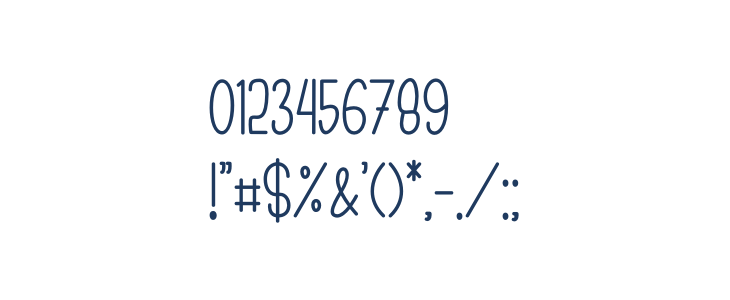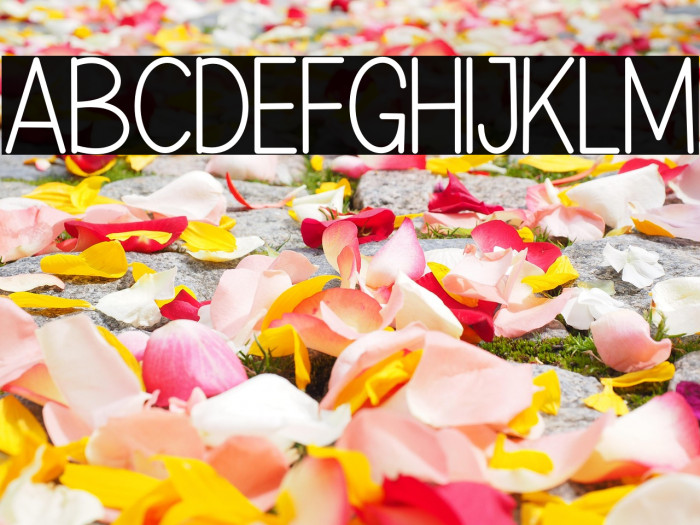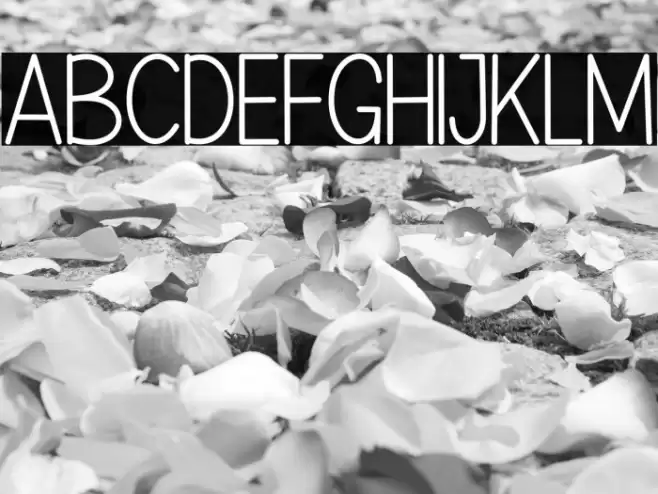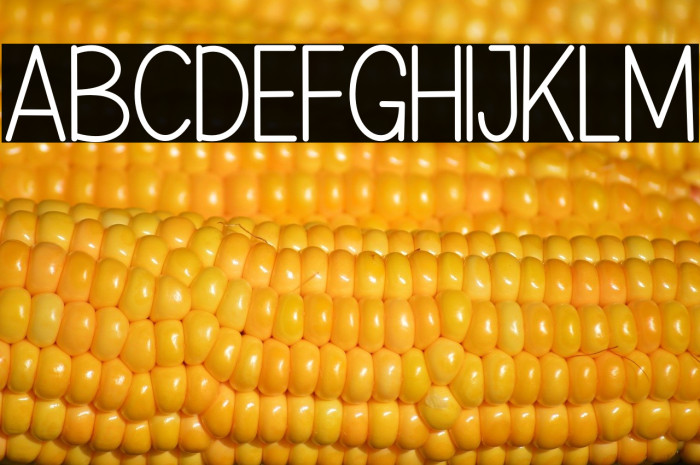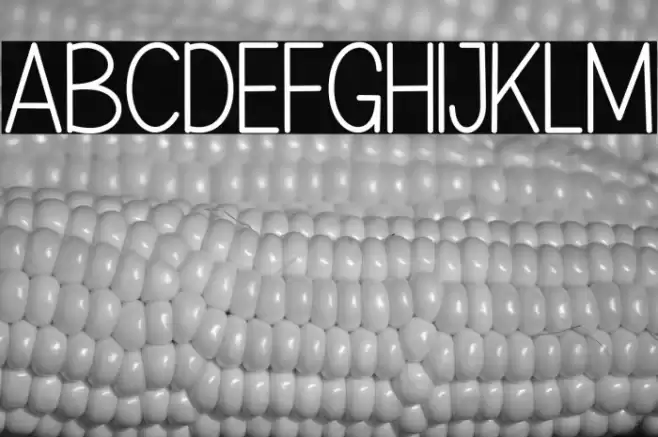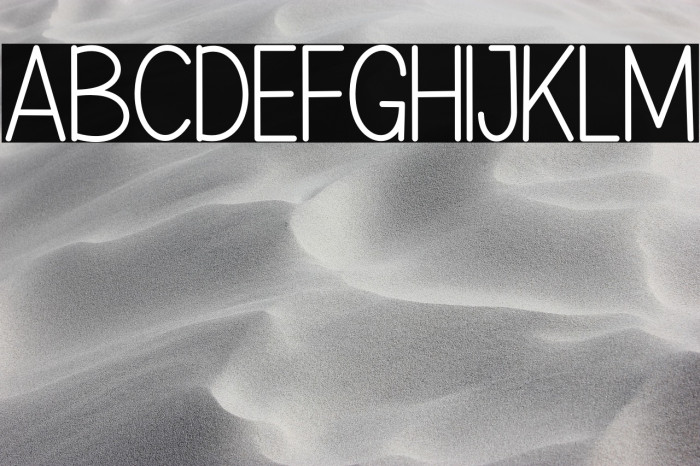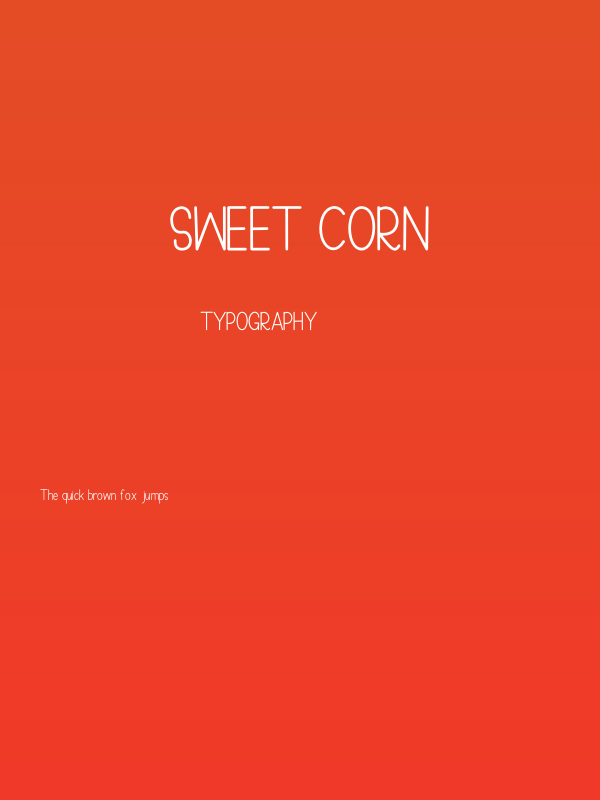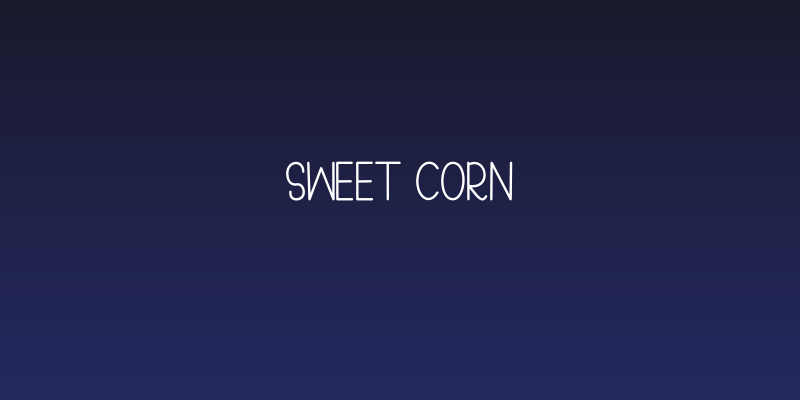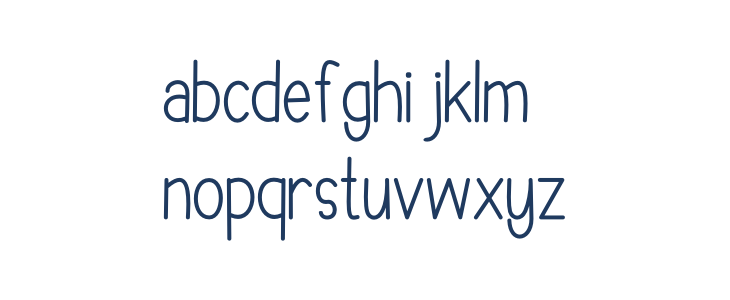
Sweet Corn Font
Sweet Corn Description
This font features a playful and whimsical style with rounded edges and a casual, handwritten appearance. The characters are tall and narrow, giving it a unique and friendly look. The uppercase letters maintain a consistent height, while the lowercase letters have a slightly smaller and more relaxed form. Numbers are clear and easy to read, matching the overall aesthetic. The special characters are designed to complement the letters, maintaining the same playful and approachable feel. This font is perfect for projects that require a touch of fun and creativity.
| Use Case | Headlines, Logos, Casual Text |
| Proposed Projects | Ideal for children's books, greeting cards, playful branding, and casual invitations. |